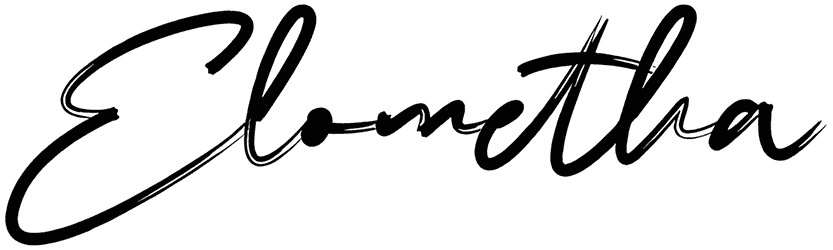
If you need a unique signature font with an elegant, realistic display, you have come to the right place. Megasta Signateria Signature font conveys a personal touch to your work, meanwhile maintaining its professional look.
This font includes two versions and a complete set of characters, which makes it more versatile. It will be an excellent choice for designing fashion brands, business cards, photo overlays, party invitations, and logotypes.